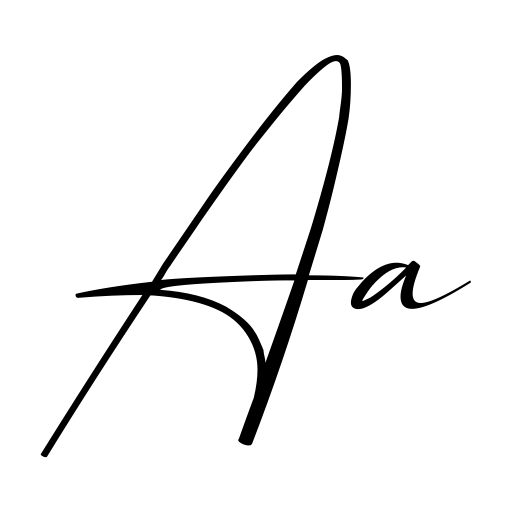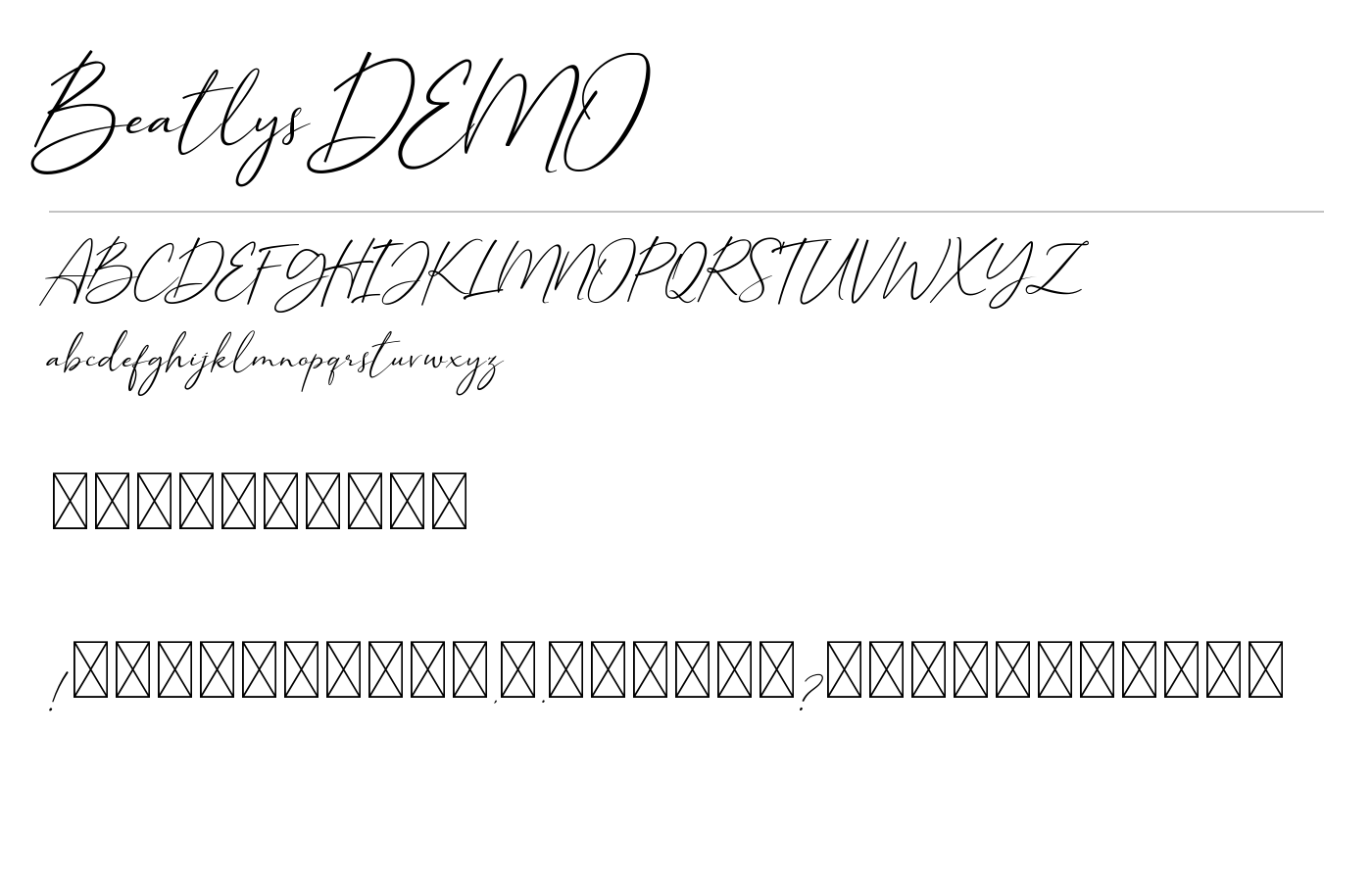
Beatlys DEMO is a delicate and elegant script font with a handwritten style that features thin, flowing strokes and a graceful, airy feel. Its elongated letterforms and smooth connections create a sophisticated and modern look, making it perfect for invitations, branding, and fashion-related designs where a personal and refined touch is desired. This font works best in display settings such as logos and headlines, adding a touch of elegance and charm without overwhelming the design.
Beatlys DEMO Font